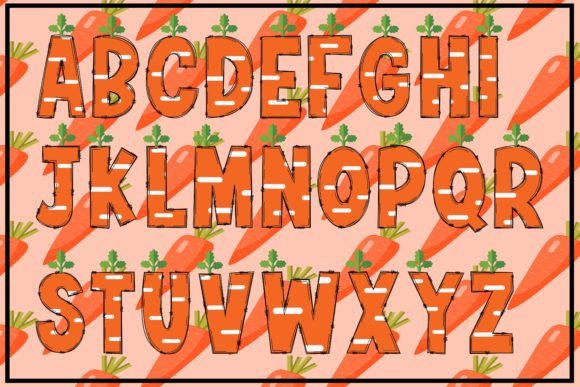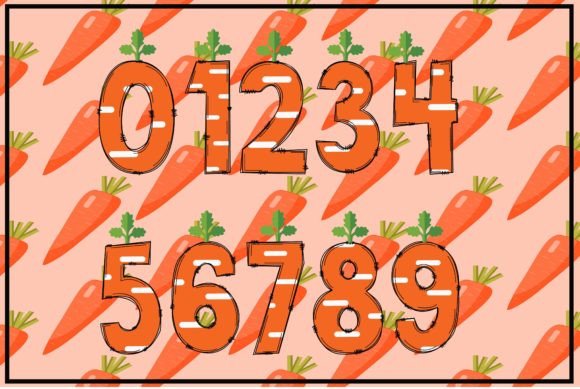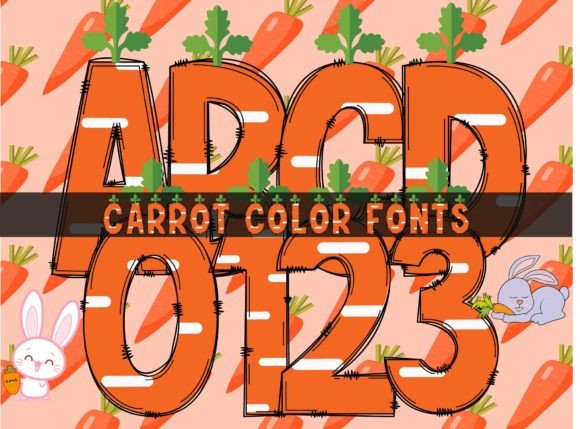
Introducing Carrot Font: The Ultimate Design Game-Changer
Are you tired of using the same old boring fonts in your designs? Look no further! Carrot Font is here to revolutionize your design game with its bold, fun, and attractive style. This vibrant font is perfect for adding a pop of color and energy to your headlines, logos, social media graphics, and more.
The Power of Color in Design
Color is a powerful design element that can evoke emotions, convey messages, and capture attention. Carrot Font takes color to the next level with its range of vibrant hues. From bold and bright to soft and pastel, this font offers a variety of colors to suit any design style or theme. Whether you’re designing for a client or creating something for personal use, Carrot Font is the perfect choice.
What Makes Carrot Font So Special?
Carrot Font is more than just a font – it’s an experience. Its unique and fun colored design makes it perfect for:
- Headlines: Grab attention with bold and eye-catching headlines that demand to be read.
- Logos: Create a memorable brand identity with a colorful and distinctive logo.
- Social Media Graphics: Stand out in crowded social media feeds with vibrant and engaging graphics.
Key Features of Carrot Font
Here are just a few reasons why Carrot Font is a must-have for designers and crafters:
- Bold and Fun: Carrot Font is designed to make a statement with its bold and playful style.
- Vibrant Colors: Choose from a range of vibrant colors to match your design style or theme.
- Unique and Attractive: This font is sure to grab attention and leave a lasting impression.
| Font Name | Carrot Font |
In conclusion, Carrot Font is a game-changer for designers and crafters looking to add a pop of color and energy to their designs. With its bold, fun, and attractive style, this font is perfect for headlines, logos, social media graphics, and more. So why wait? Try Carrot Font today and take your designs to the next level!